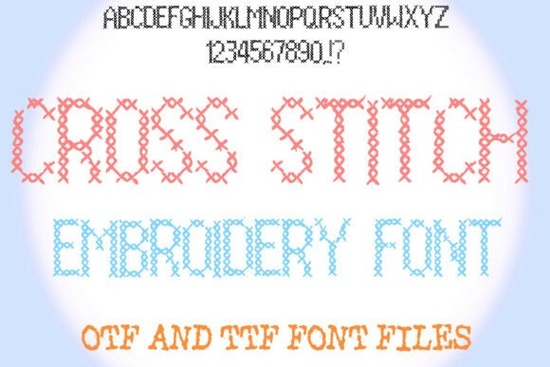
If you've ever wanted to give your projects that handmade, stitched look without picking up a needle, the Cross Stitch Embroidery Font is worth a close look. It's a Cross Stitch Embroidery Font that mimics the charm of real embroidery lettering each letter is built from tiny stitch-like marks that feel warm, personal, and a little bit quirky. You can color every letter to match your vision, which makes it surprisingly flexible for all kinds of design work.
What can you actually make with a cross stitch font?
This style of decorative embroidery lettering works well across a range of projects. Here are a few ideas that crafters and designers use it for:
- Print-on-demand products Think tote bags, mugs, and t-shirts with stitched-style text. The font pairs well with cozy, rustic, or farmhouse aesthetics.
- Greeting cards and invitations A stitched alphabet adds a handmade feel to birthday cards, baby shower invites, or holiday greetings.
- Home décor mockups Use it on wall art prints, pillow designs, or kitchen signs for that classic cross-stitch sampler vibe.
- Scrapbooking and journaling The texture of the letters adds visual interest to digital or printed layouts.
- Social media graphics Posts and stories stand out when the text looks handcrafted instead of generic.
- Change the color of individual letters or the whole word to match your project palette.
- Scale it up or down without losing the stitched detail, since it's a vector-friendly font.
- Layer it over fabric textures or kraft paper backgrounds for an authentic embroidered look.
- Combine it with illustrations, borders, or dingbats for more complex compositions.
The key thing to remember is that this font is not an embroidery machine file it's a standard digital typeface styled to look like cross stitching. So it works anywhere regular fonts work.
Who is this font a good fit for?
This font appeals to a pretty wide audience:
- Print-on-demand sellers looking for niche typography that stands out in a crowded marketplace
- Small business owners who want branding materials with a handcrafted, approachable feel
- Crafters and hobbyists who love the cross-stitch aesthetic but want digital speed
- Graphic designers working on projects that call for a playful, textured typeface
Does it pair well with other fonts?
Absolutely. Because the Cross Stitch Embroidery Font has a lot of texture and personality, it works best alongside simpler, cleaner typefaces for contrast. You might pair it with a basic sans-serif for body text or try mixing it with something playful like the whimsical fairy style font for a fantasy-themed design. For something more grounded, a folk-inspired typeface complements the handcrafted feel nicely.